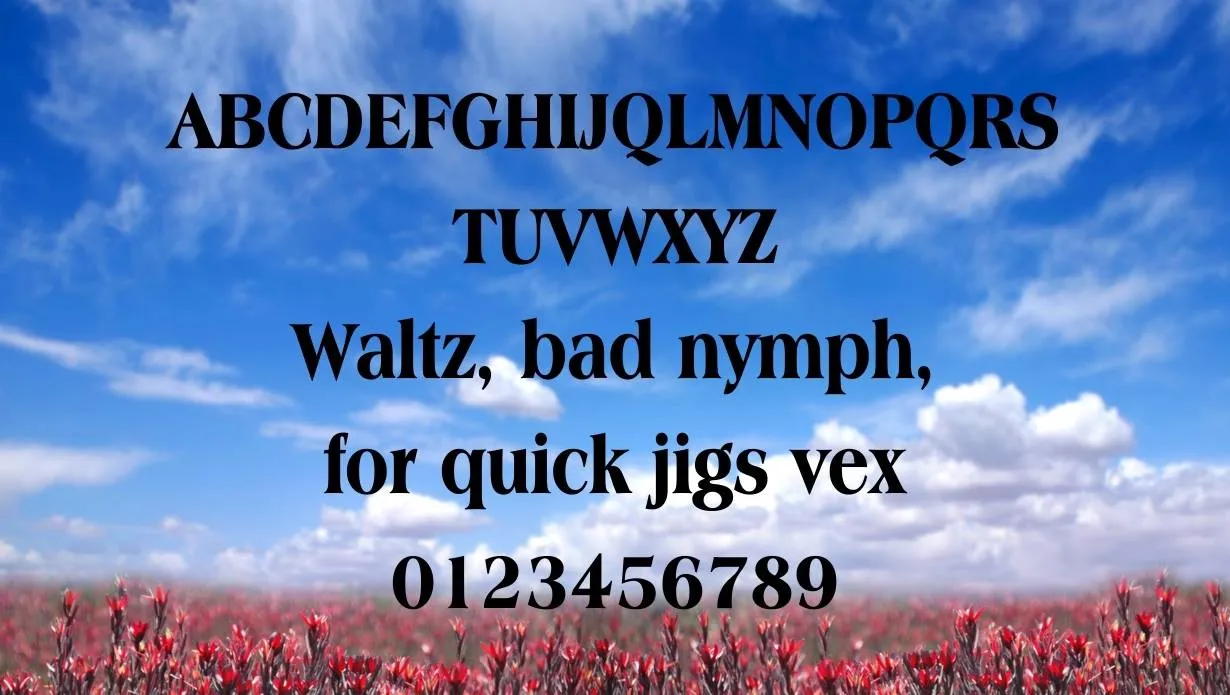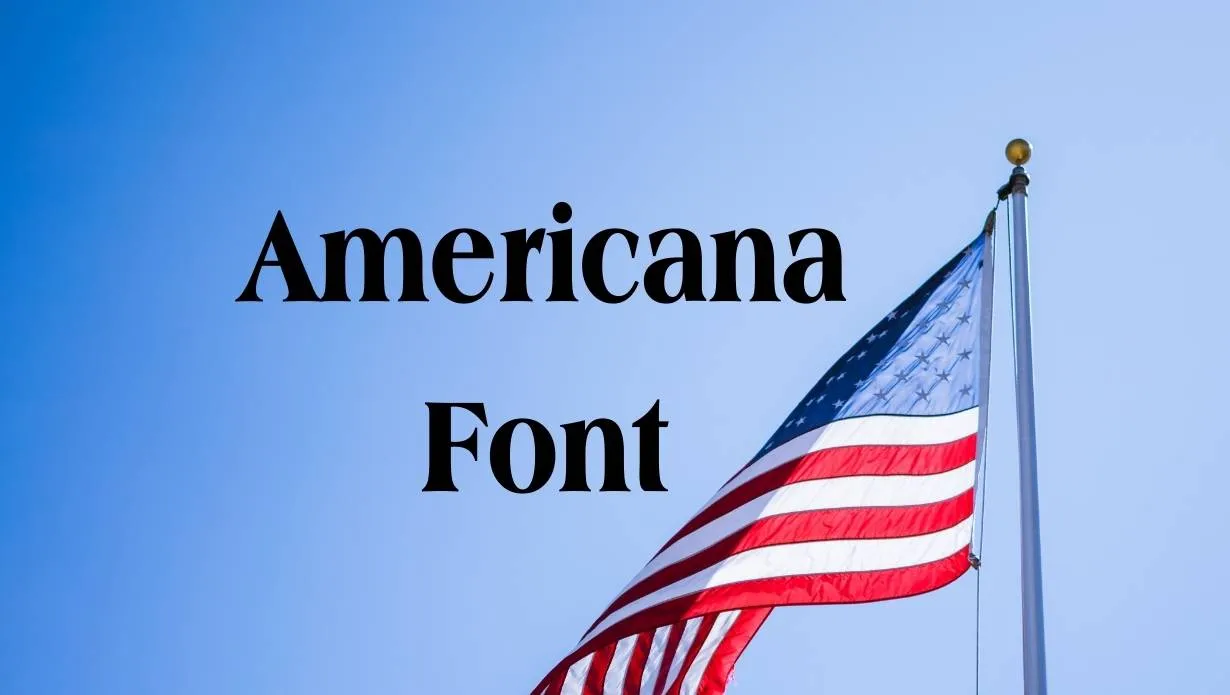
About Americana Font
The Americana font is a serif typeface that was designed by Richard Isbell in 1966. Ideal for advertising and display applications, this bebas font is incredibly engaging.
- Americana Bold BT
- Americana BT
- Americana Extra Bold BT
- Americana Extra Bold Condensed BT
- Americana Italic BT